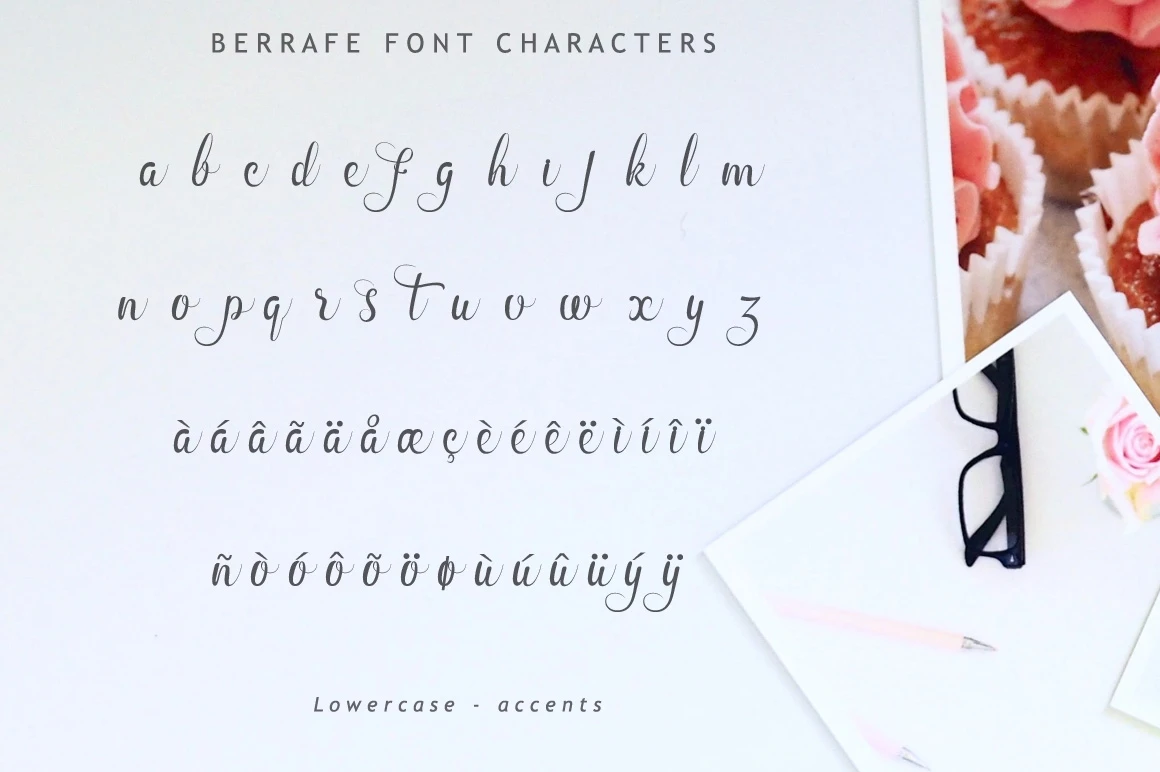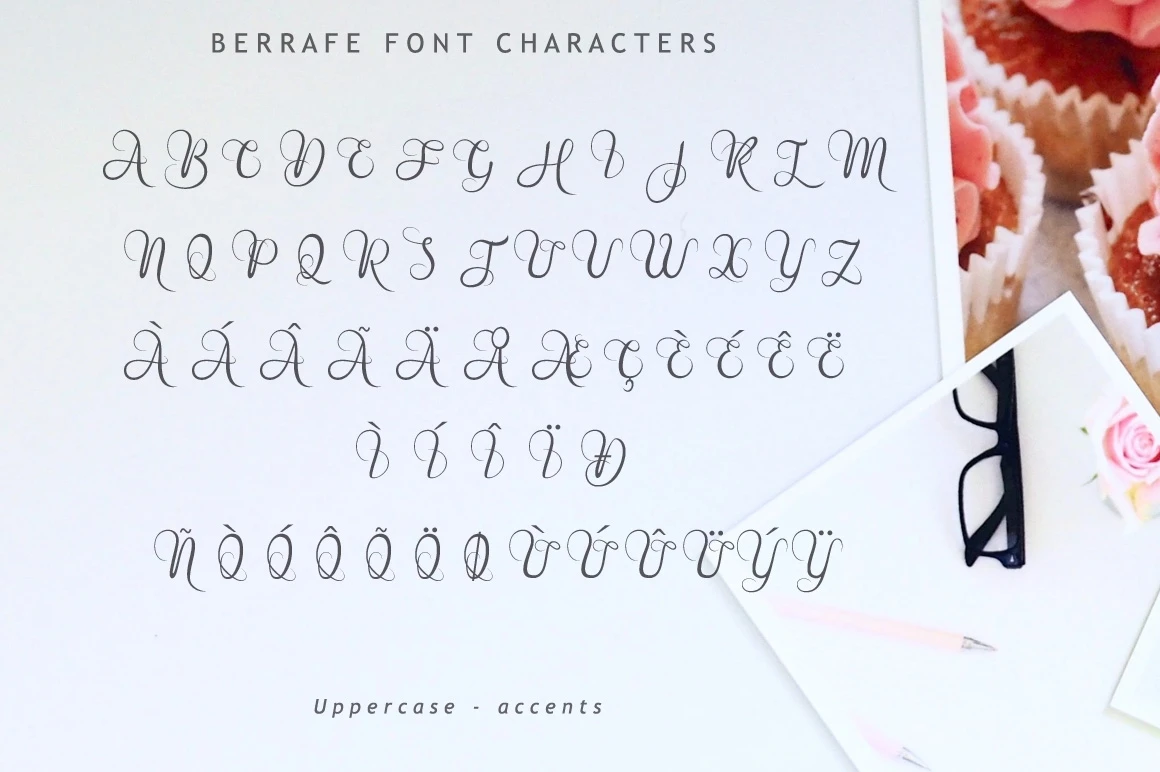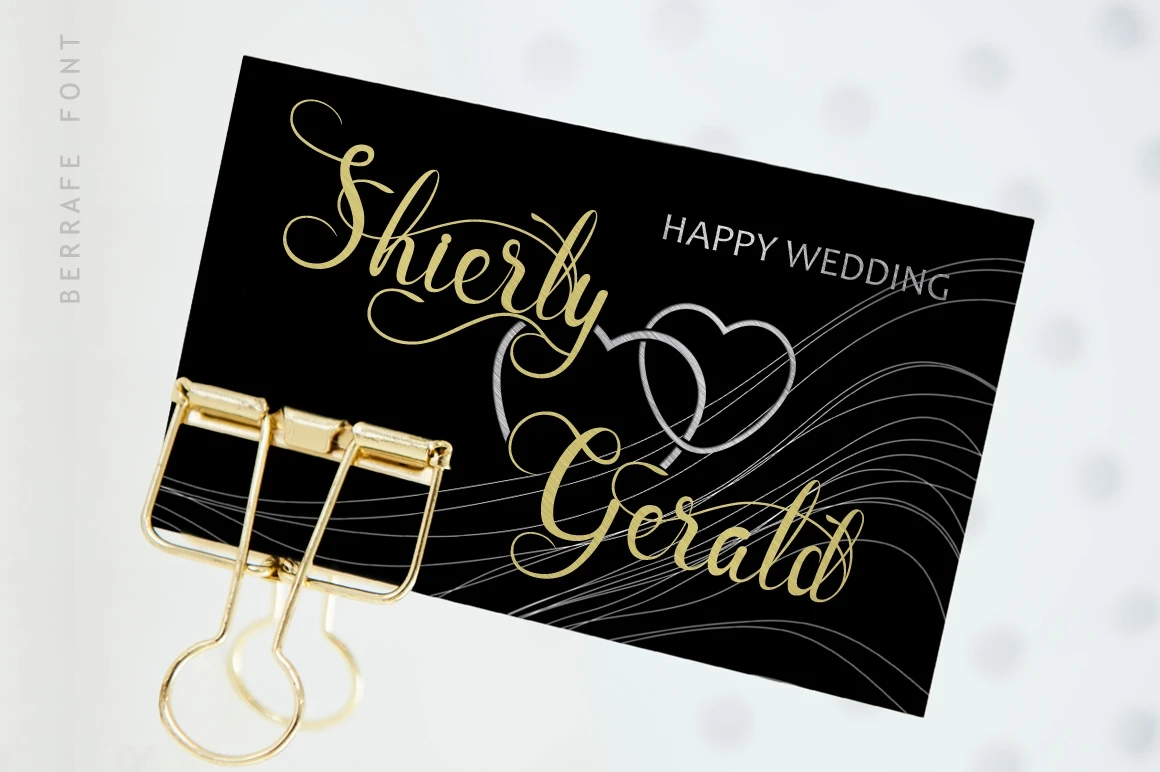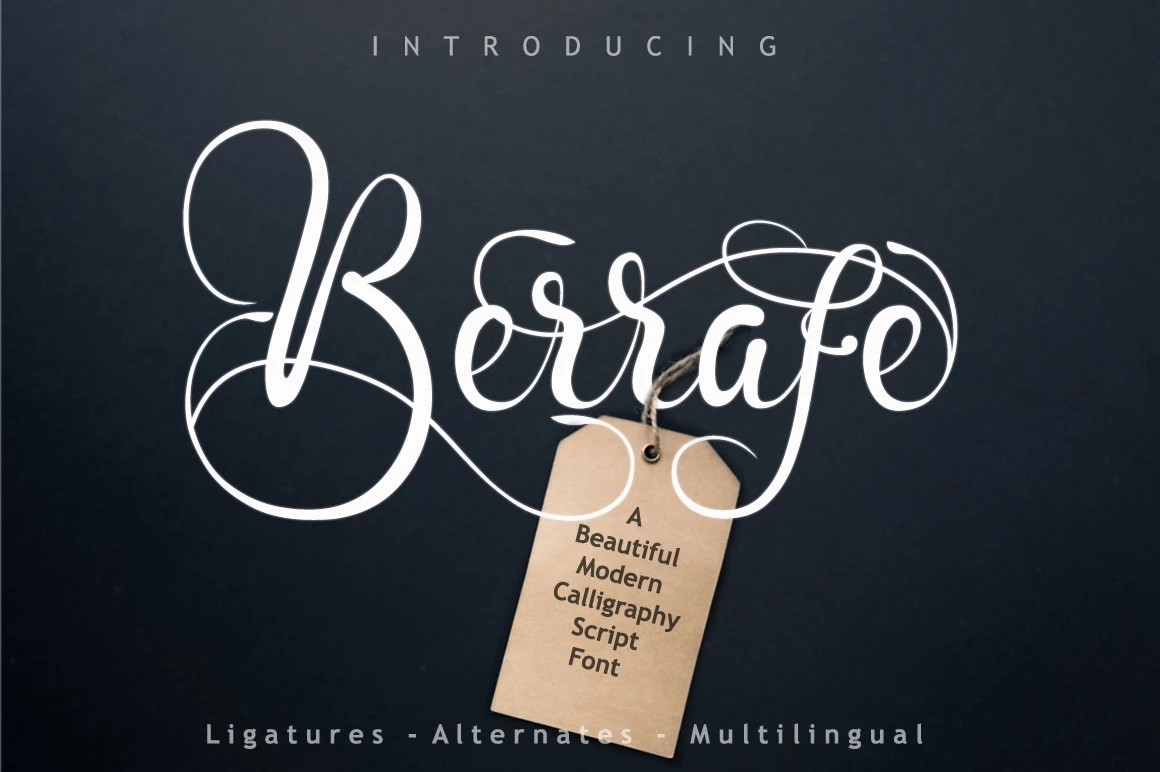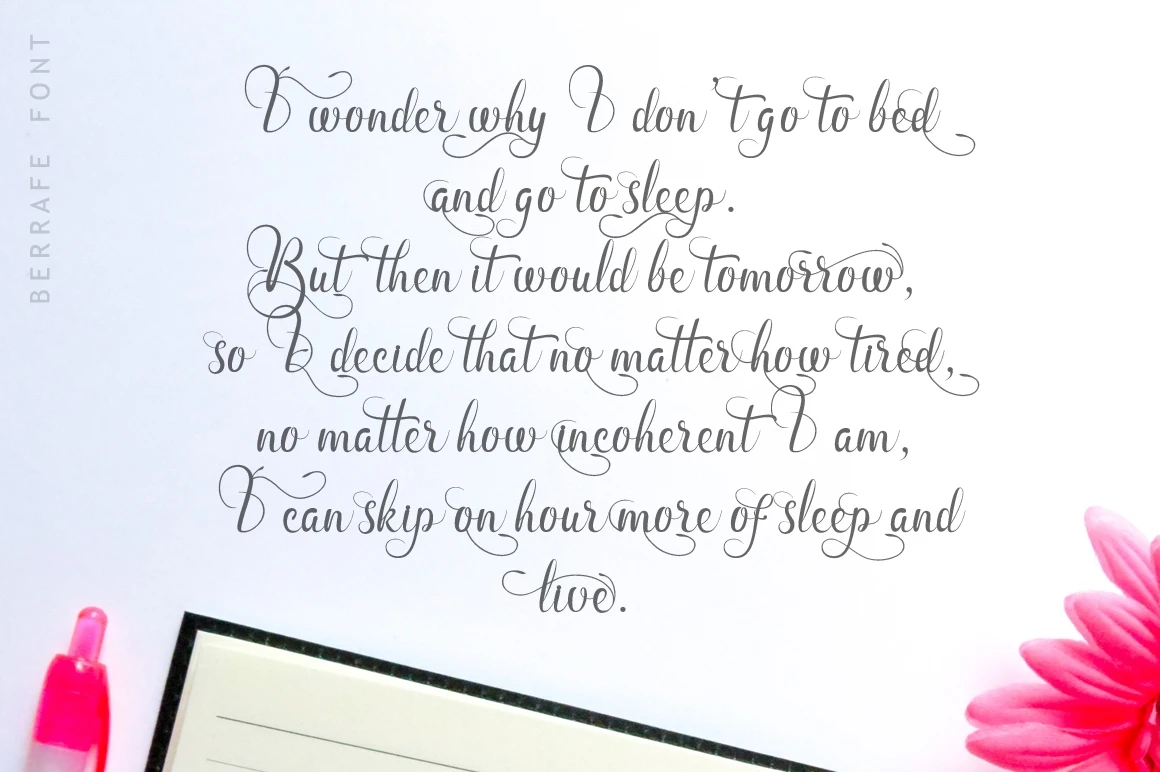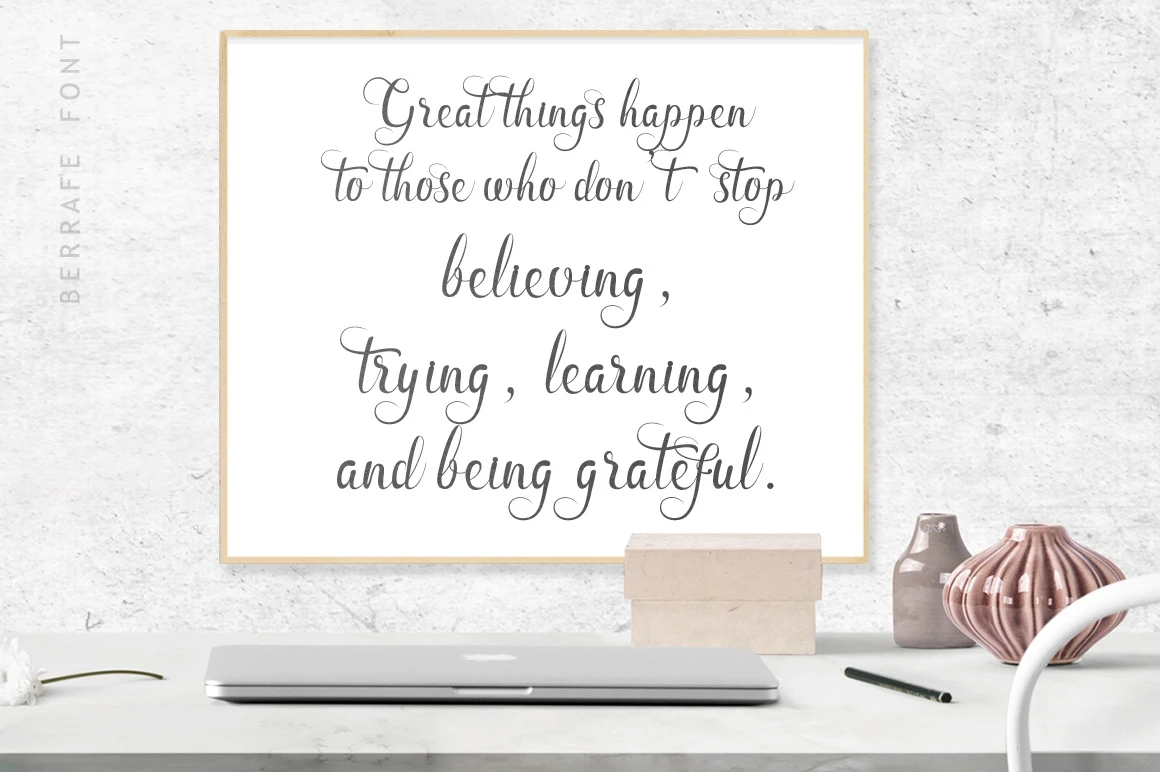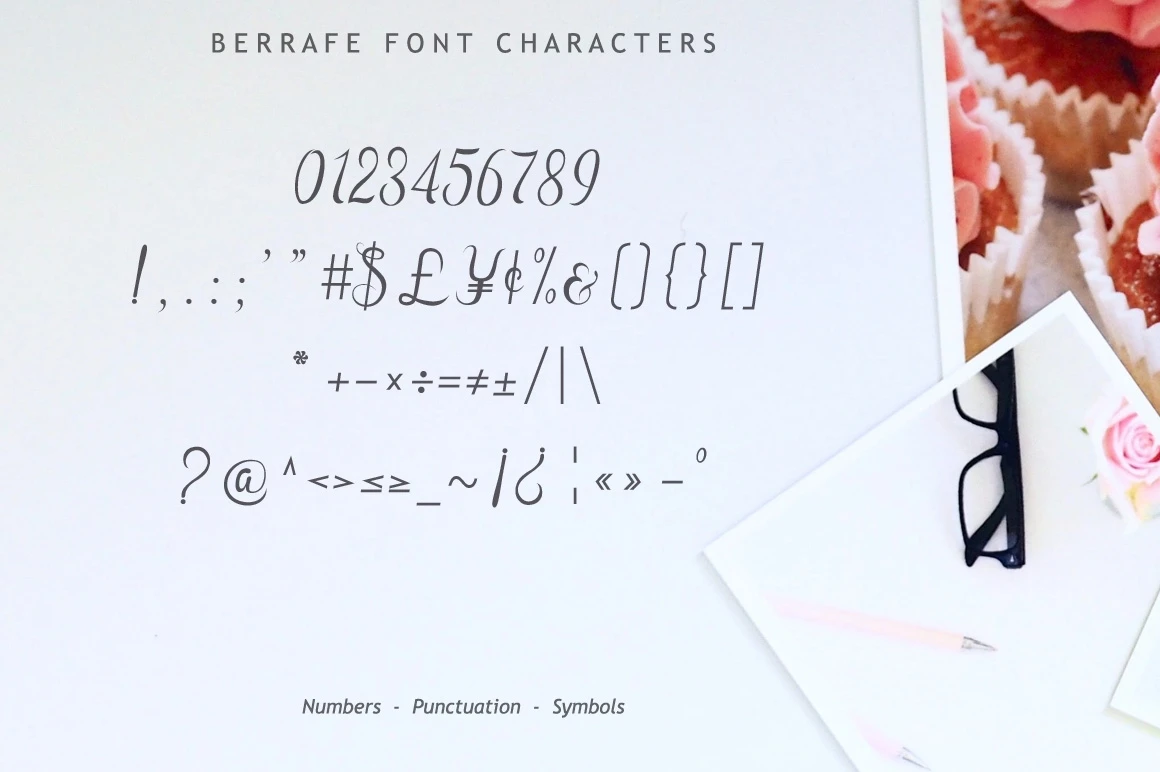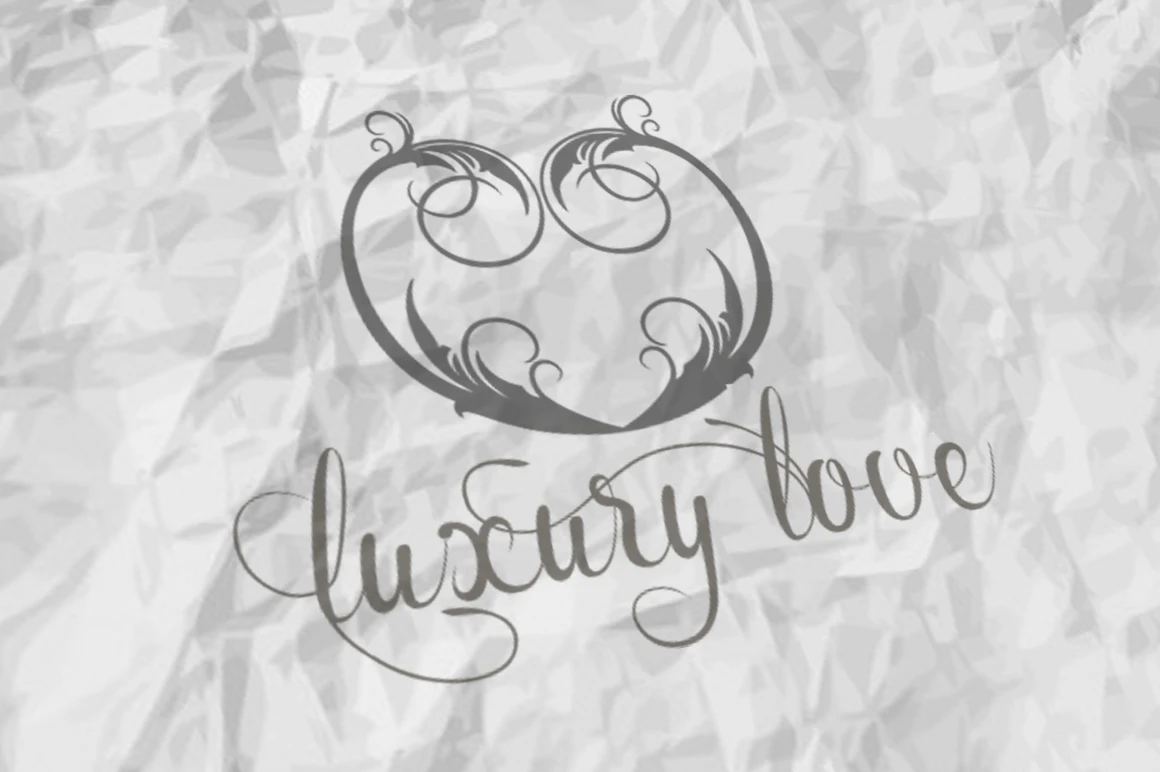
Berrafe is a beautiful modern calligraphy script font.Perfect for wedding invites, logos, branding, quotes, product packaging, headers, and more.
Features :
- Uppercase A-Z
- Lowercase a-z
- Numbers 0-9
- Accents
- Punctuation
- Uppercase Alternates
- Lowercase Alternates
- Custom Ligatures
- Multilingual support